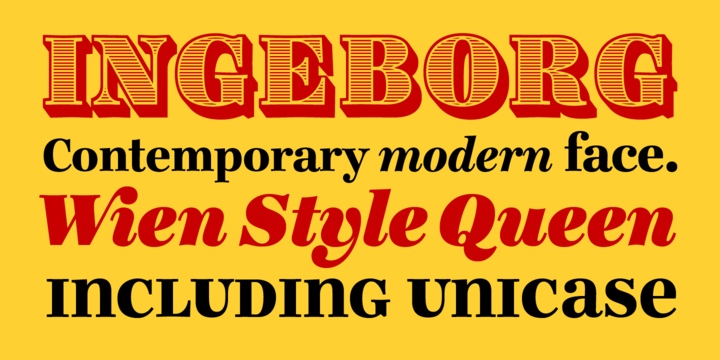
Ingeborg Font
Ingeborg Font is perfect for Scandinavian-inspired branding, Nordic lifestyle magazines, minimalist home decor packaging, artisanal craft labels, hygge-themed publications, and contemporary wellness brands. Its clean elegance makes it ideal for sustainable fashion companies, organic food products, spa and wellness centers, modern furniture brands, and any project requiring sophisticated simplicity with Northern European aesthetic appeal.
This font is exciting because it embodies the timeless elegance and functional beauty of Scandinavian design philosophy while offering exceptional versatility for modern communication needs. The refined letterforms capture the essence of Nordic minimalism and craftsmanship, creating a sense of calm sophistication that resonates with audiences seeking authentic, quality-focused brands and sustainable lifestyle choices.
The Ingeborg Font family typically includes Light, Regular, Medium, and Bold weights with corresponding italics, often featuring alternative characters and ligatures that enhance typographic refinement. This comprehensive range provides designers with subtle yet powerful tools for creating sophisticated hierarchies and elegant compositions that reflect Nordic design values of functionality, beauty, and understated luxury.